UFC Font
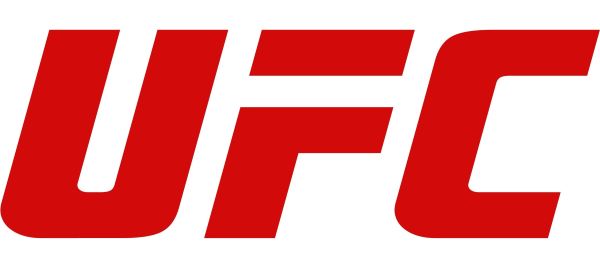
What Font is UFC?
The UFC font is most closely represented by Sternbach (created by Pixel Sagas), a bold and modern display typeface that mirrors the strong, angular lettering used in the official UFC logo. With its sharp edges, athletic proportions, and impactful presence, Sternbach captures the intensity and competitive spirit associated with the Ultimate Fighting Championship. While not the official font, it is one of the most accurate fan-used alternatives, and you can download it for free, making it a great option for UFC-inspired graphics, posters, and personal design projects.
About UFC
The Ultimate Fighting Championship (UFC), founded in 1993, is the world’s leading mixed martial arts (MMA) organization. Known for showcasing elite fighters across multiple weight divisions, the UFC has grown into a global sports powerhouse, producing major events watched by millions worldwide.
Featuring athletes skilled in disciplines such as Brazilian jiu-jitsu, wrestling, boxing, and Muay Thai, the UFC is recognized for its high-intensity matches and championship titles. Its bold visual branding—paired with strong, angular typography—reflects the sport’s raw power, discipline, and competitive energy, helping cement the UFC as the premier platform for mixed martial arts.